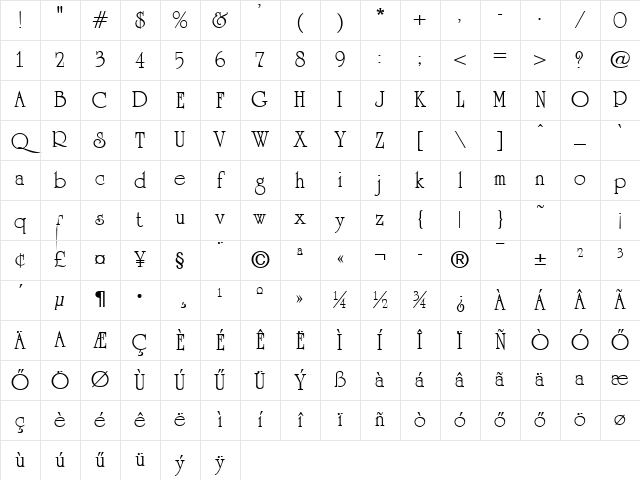
Hu_University Normal Regular
Design Context for Hu_University Normal
Hu_University Normal is a composed and adaptable typeface that performs quietly and consistently across a wide range of design contexts.